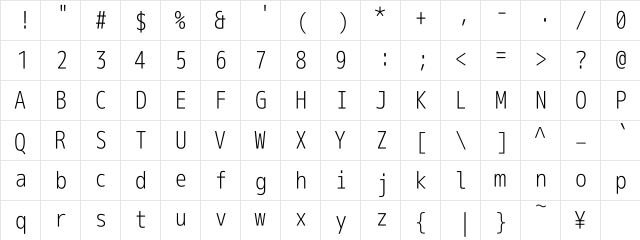
M+ 1m light
Design Context for M+ 1m Typeface
M+ 1m takes a measured approach to typography — its balanced proportions and neutral character make it a reliable workhorse for both digital and print work. The delicate stroke weight brings airiness and refinement to layouts.
Pro Tip: Use M+ 1m in both headline and body roles to test its range before committing to a single application.